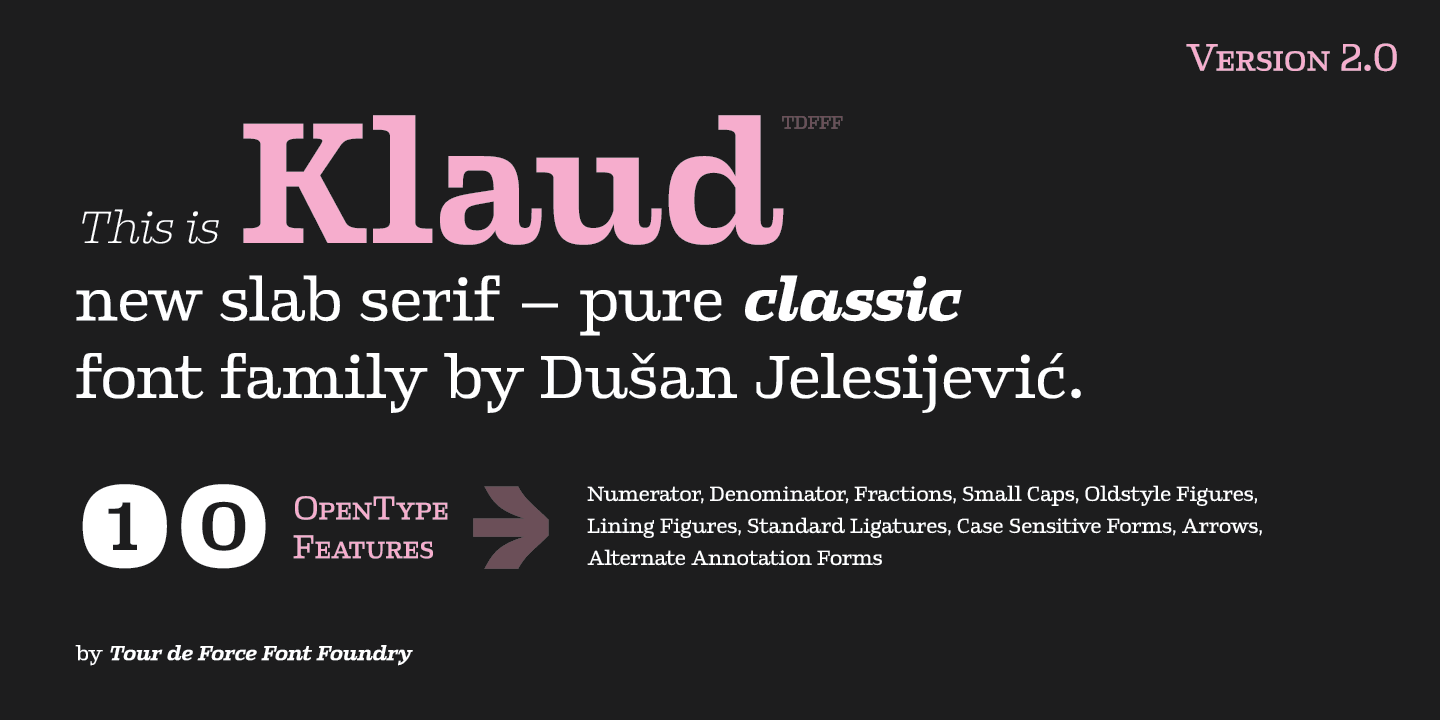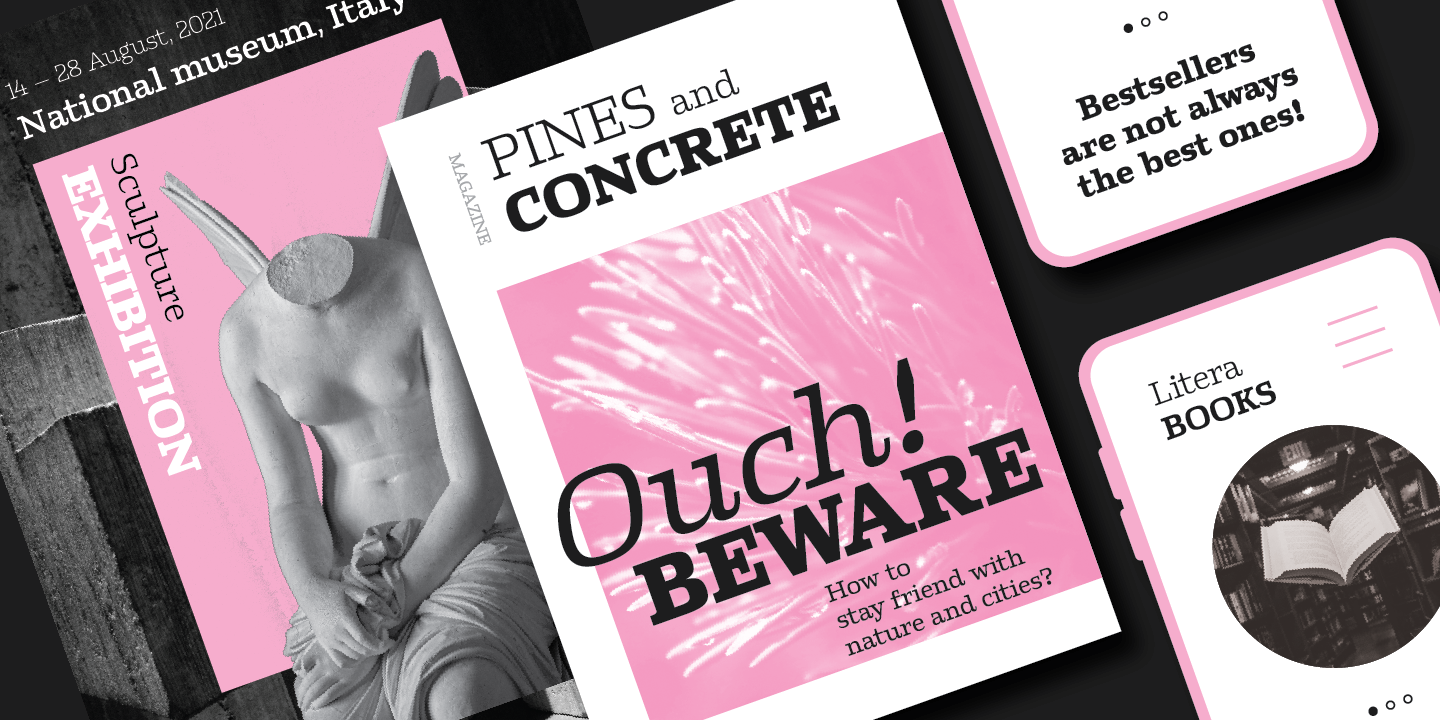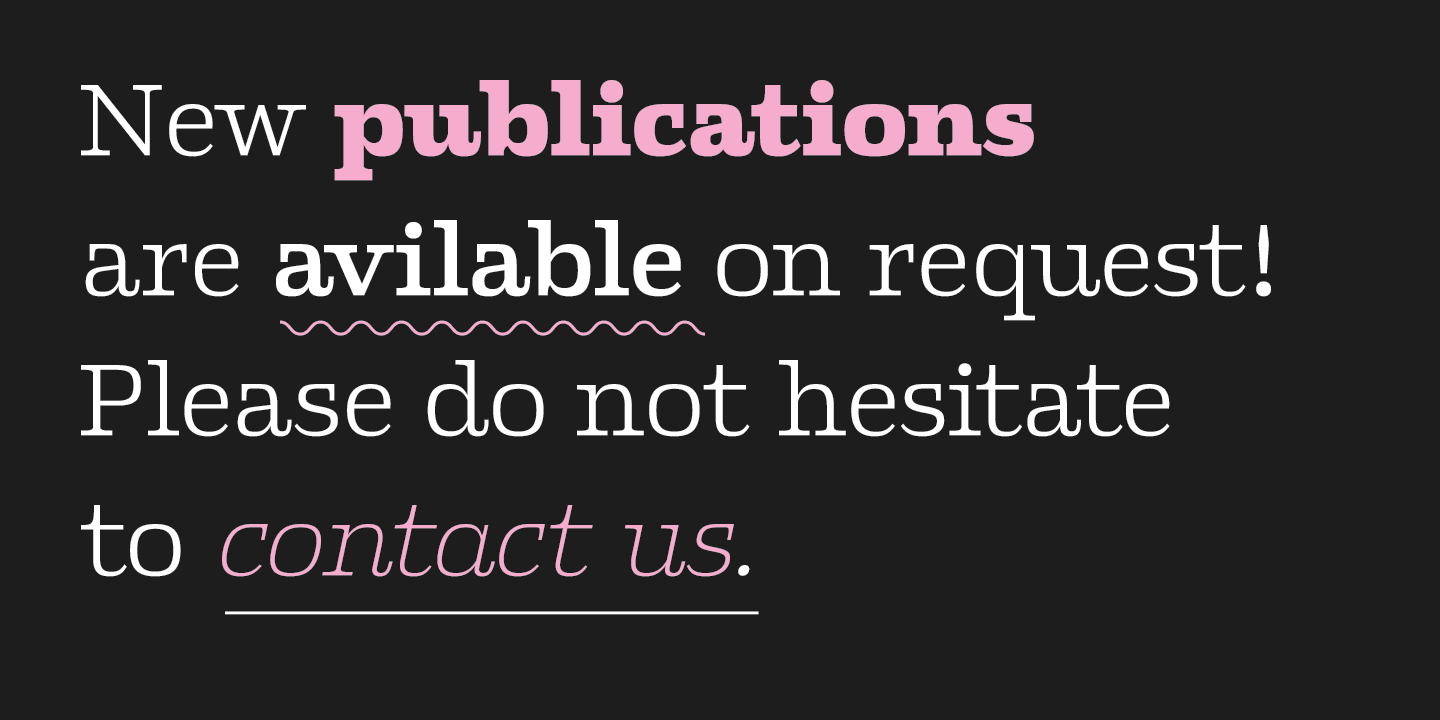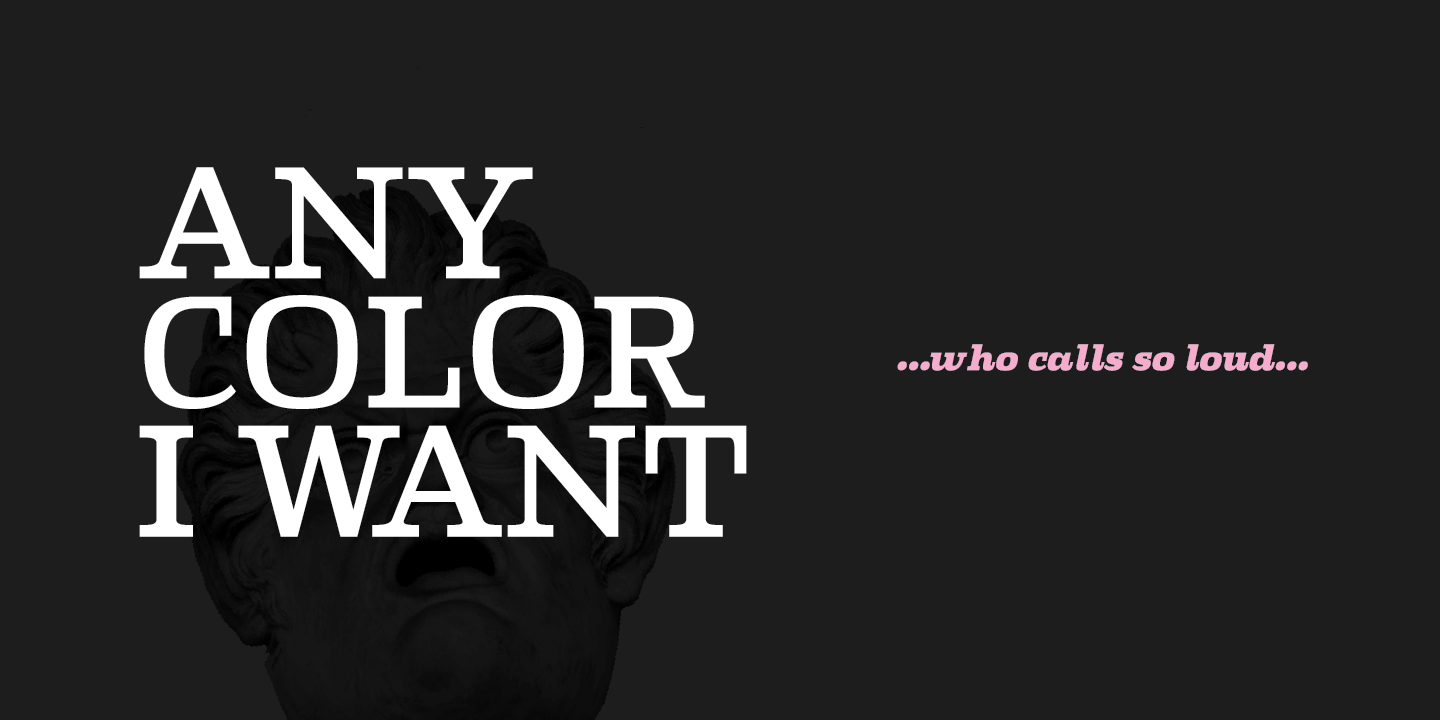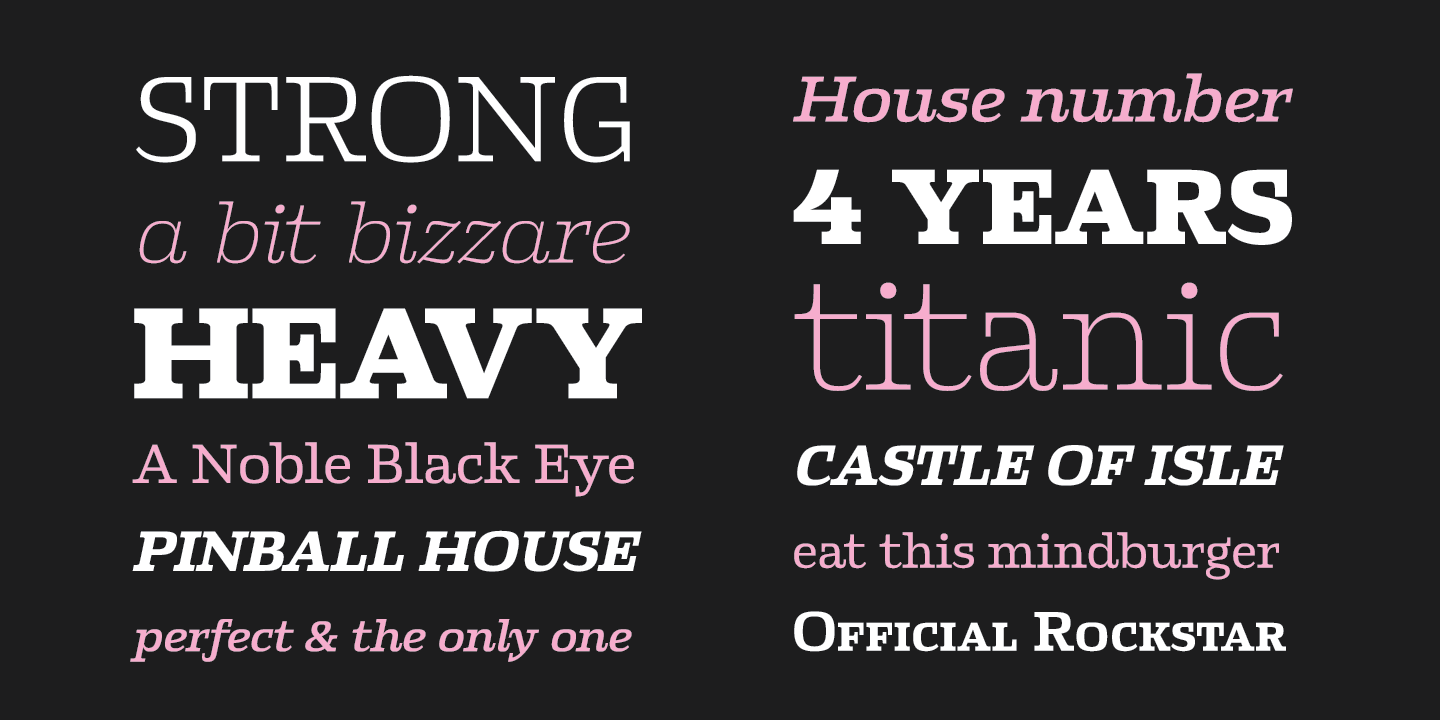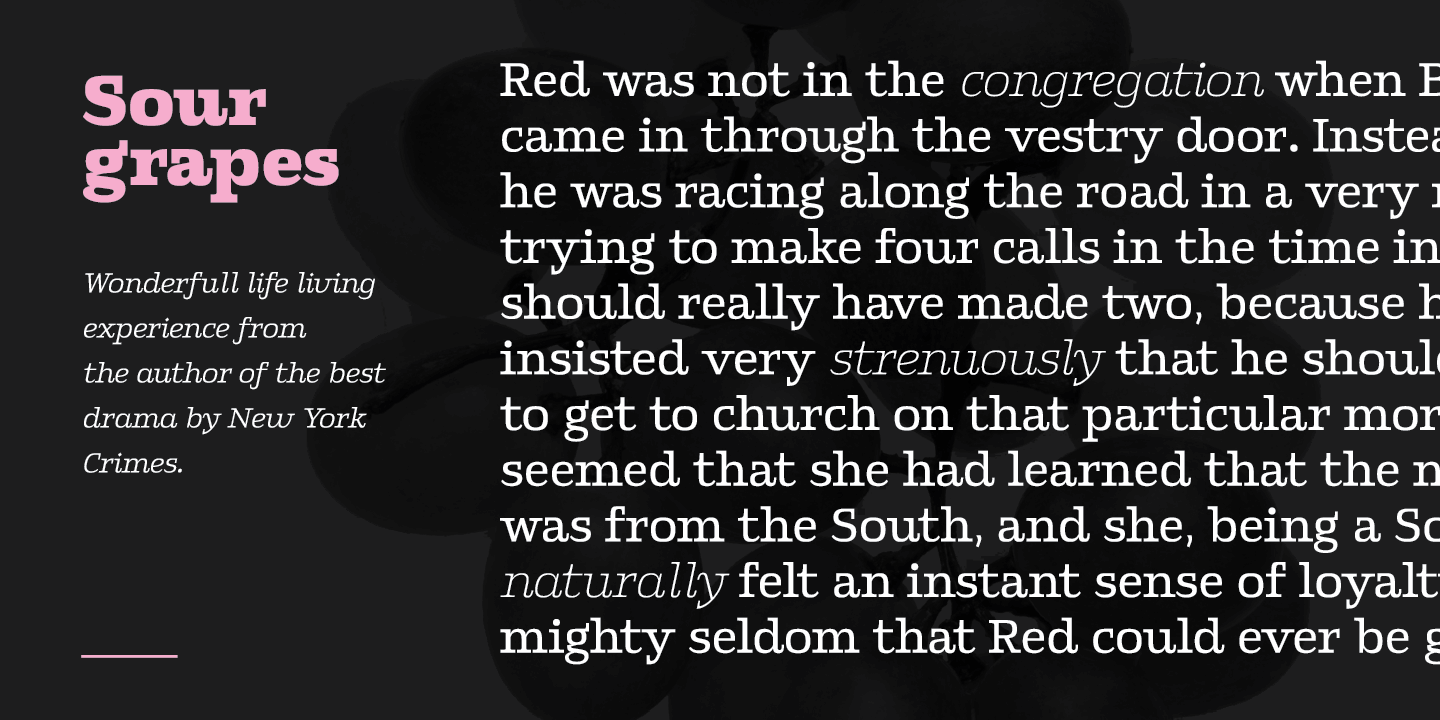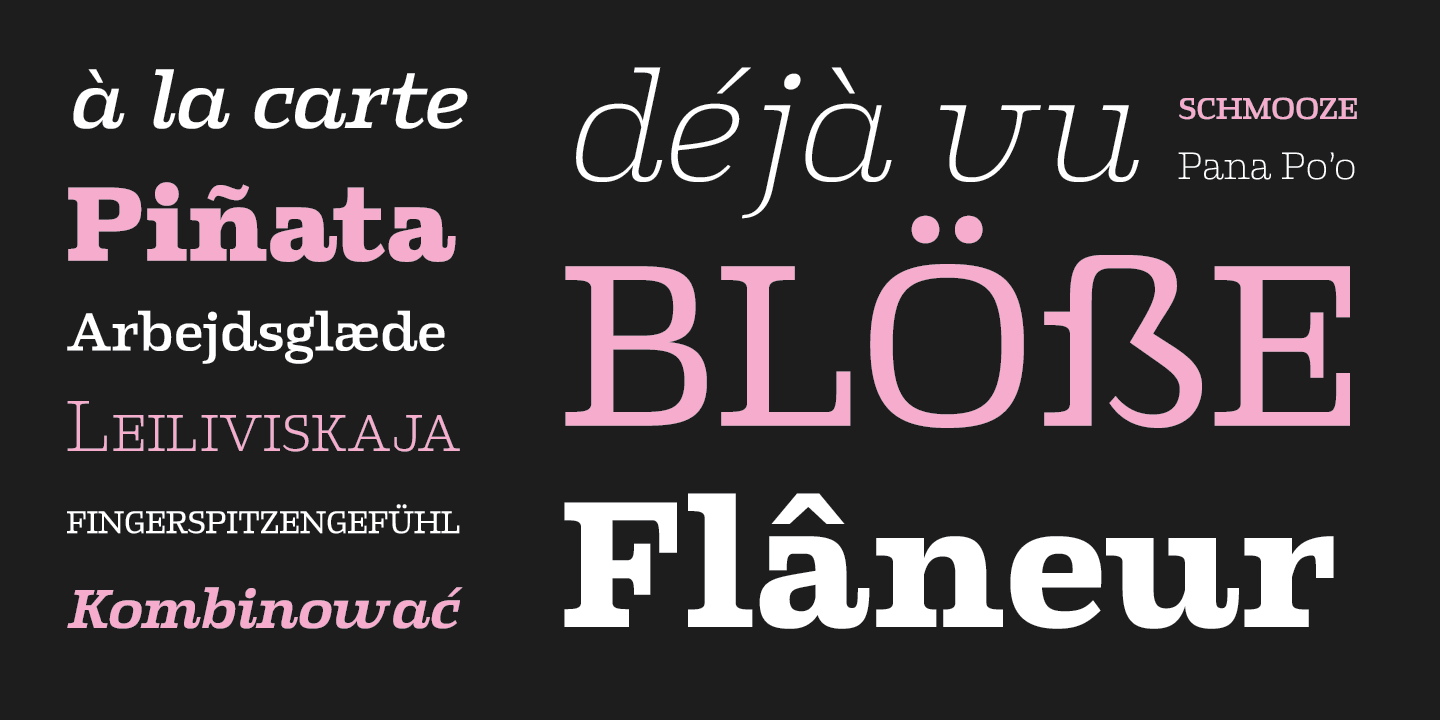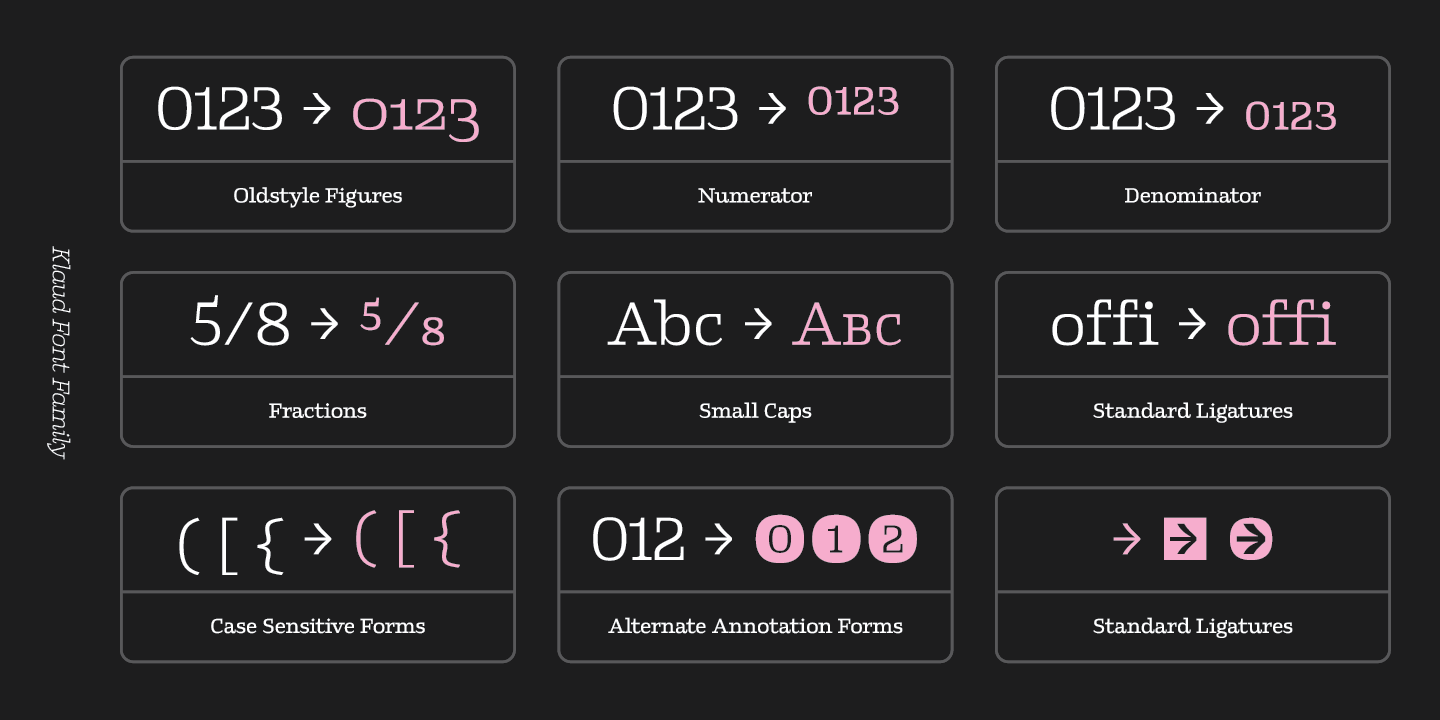
Klaud is our new slab serif family with 14 styles.
Klaud is our new slab serif family with 14 styles. It is compact, stable typeface that's carefully designed to suit in every possible situation where an working horse typeface could be used.
Klaud is good balanced, visually equalized family that looks and feels smooth in longer texts and paragraphs, but works well in headlines also cause it's gentle decorative letter parts. Strong look is achieved by more squared then rounded characters design. As mentioned, Klaud is perfect to fit into any designer's project – from editorial use as the main typeface to situations where you are looking for a couple of words only like posters or packages. It is fully legible and versatile as web font also.
Klaud is offered with OpenType features like Numerator, Denominator, Fractions, Small Caps, Oldstyle Figures, Lining Figures, Standard Ligatures, Case Sensitive Forms, Arrows, Alternate Annotation Forms.